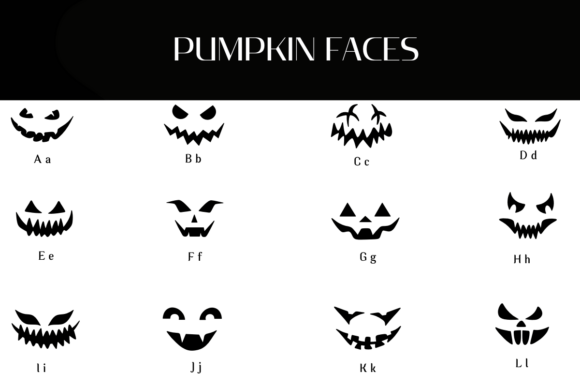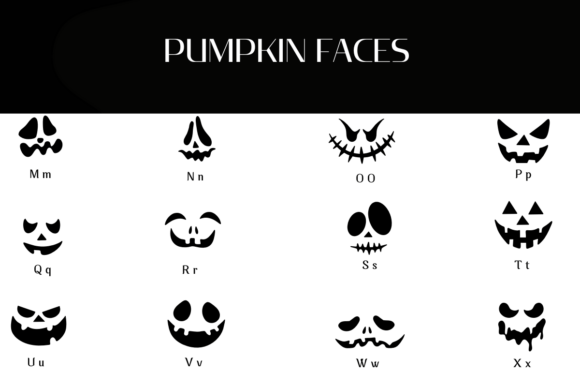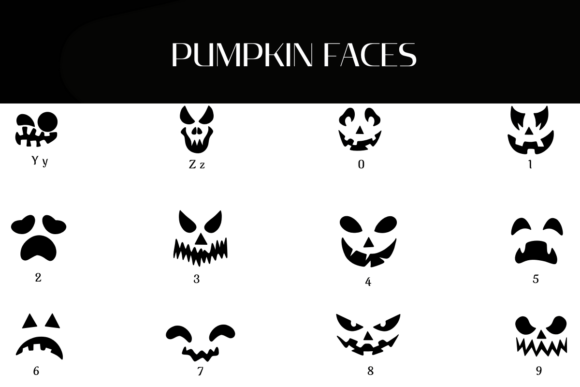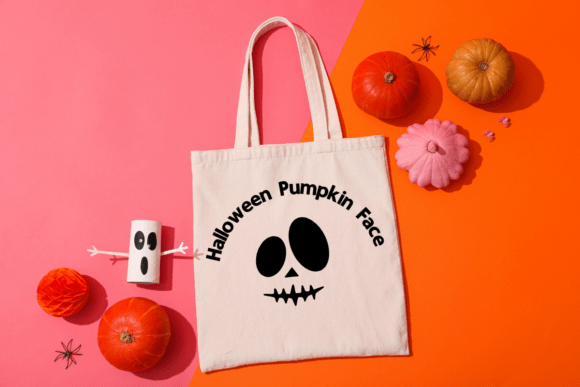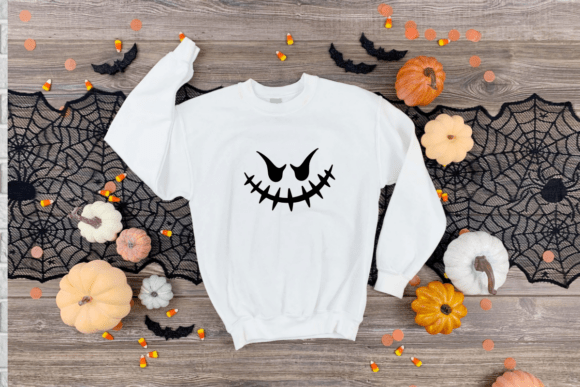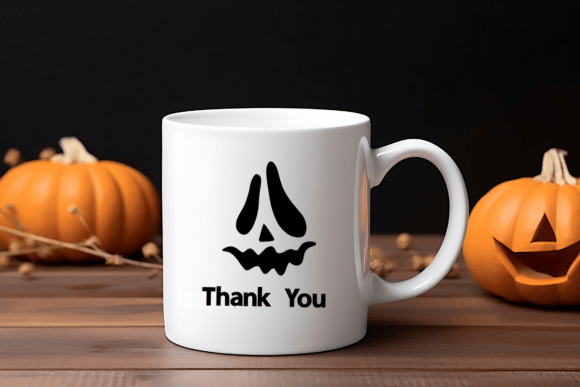
Introduction to Pumpkin Faces Font
Pumpkin Faces Dingbats is a spooky and fun dingbat font packed with expressive jack-o’-lantern faces.
From creepy grins and sinister smirks to playful, quirky expressions, each glyph brings Halloween spirit to life Perfect for seasonal designs, these bold silhouettes can instantly transform any project into a festive creation.
Key Features of Pumpkin Faces Font